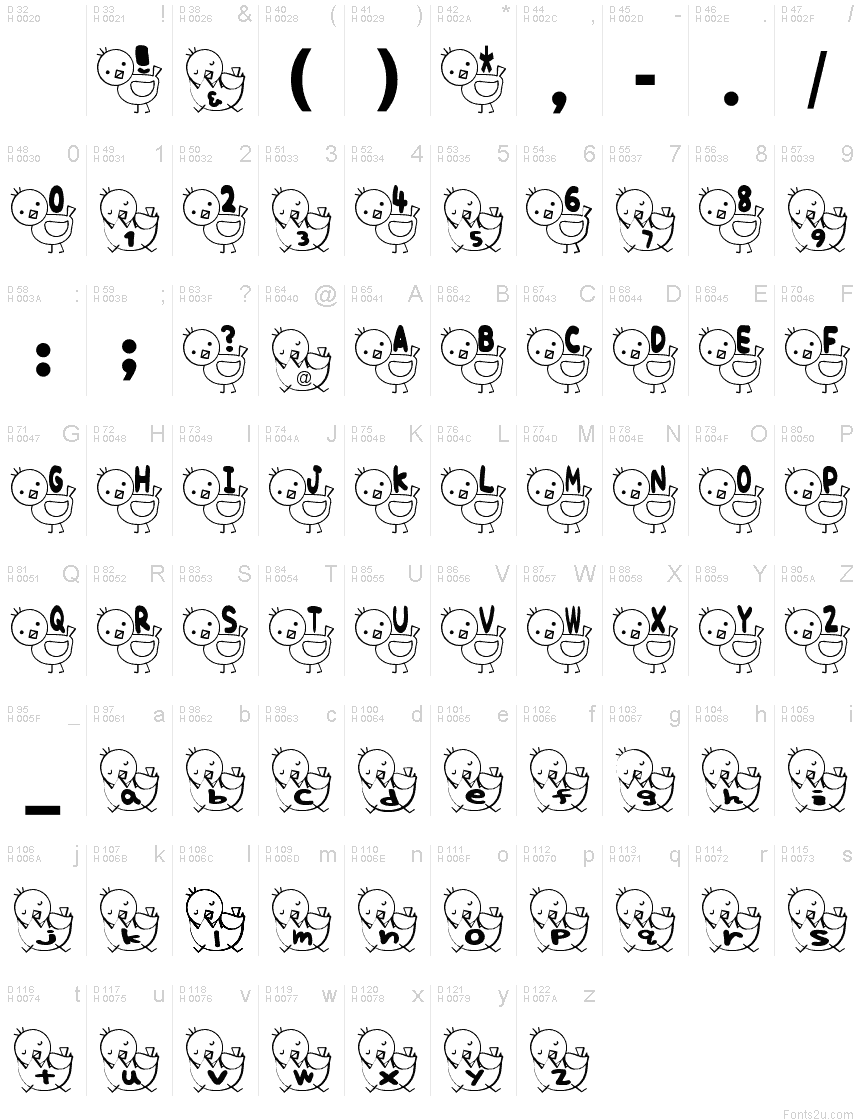
T-piyo Font by Tama&Pi_ is a free cartoon display font that turns letters into plump, hand-drawn chicks. Each character sits inside a round bird body, with beaks, legs, tufts, and small tail shapes recurring across the set. The linework is cheerfully uneven.
The bird motif connects directly with animal illustrations, making the font apt for children's publishing, classroom materials, and playful event graphics. It could also shape poultry-themed food packaging or game screens, where each letter functions as a tiny mascot rather than ordinary text.